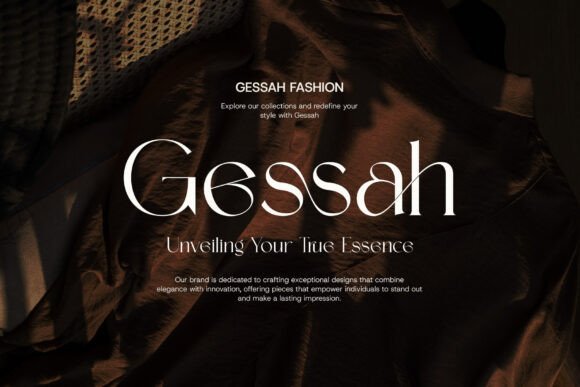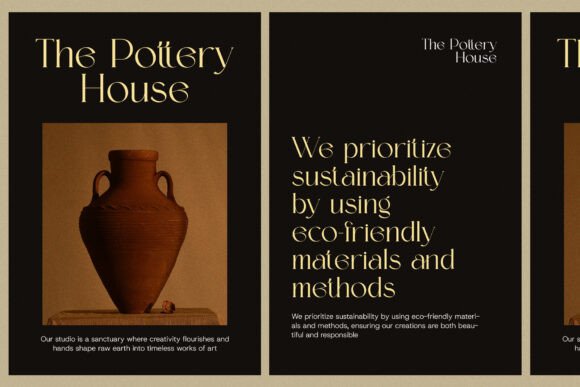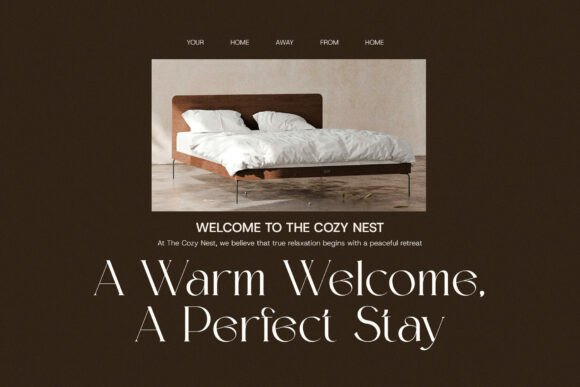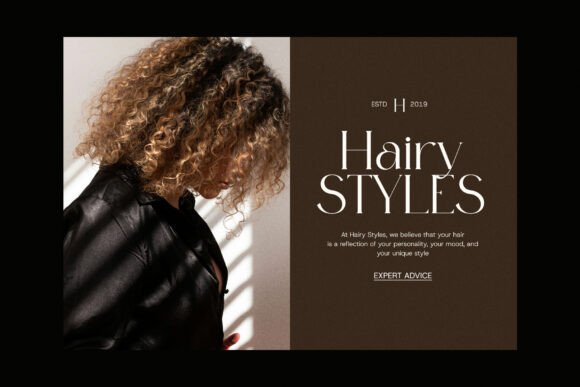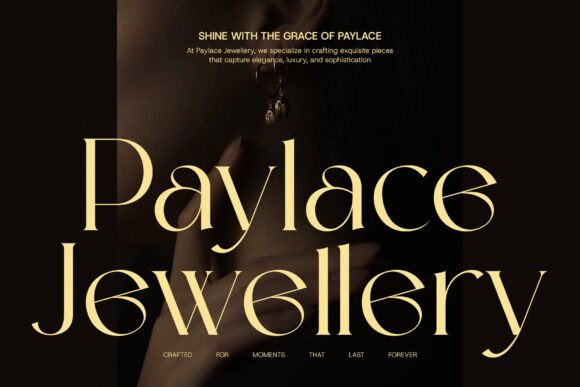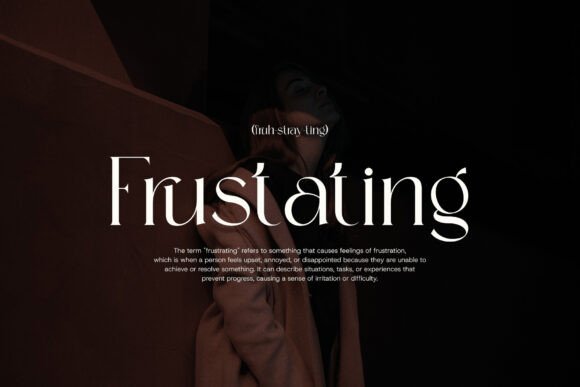
Ganthe Modern Serif Font: Elevate Your Designs with Timeless Elegance
In the world of typography, a well-crafted font can make all the difference in elevating your design to new heights. Introducing Ganthe Modern Serif Font, a bold and sophisticated typeface that seamlessly blends modern design with timeless elegance. With its sleek serifs and clean, sharp lines, Ganthe offers a refined yet contemporary feel that is perfect for high-end projects.
Unparalleled Versatility
Ganthe Modern Serif Font is a versatile choice for a wide range of applications, including logos, branding, and visual identities. Its strong, confident appearance makes it especially effective in premium advertising, luxury product packaging, and editorial layouts. Whether you’re designing for a boutique, a fine dining restaurant, or a lifestyle brand, Ganthe brings a sense of sophistication and distinction to any creative endeavor.
Distinctive Features
What sets Ganthe apart from other modern serif fonts is its beautifully crafted ligatures and alternate characters. These unique features provide an extra layer of character and flair, allowing you to infuse your designs with personality and style. The font’s sleek serifs and clean lines create a sense of balance and harmony, making it perfect for designs that require a touch of elegance.
Perfect for Digital and Print Formats
Ganthe Modern Serif Font shines equally in digital and print formats, making it perfect for a variety of mediums. Use it for websites, magazines, brochures, and advertisements to add a touch of sophistication and refinement. The font’s legibility and clarity ensure that your message is conveyed with precision and style, whether on screen or in print.
Why Choose Ganthe?
So, why choose Ganthe Modern Serif Font for your next design project? Here are just a few reasons:
- Timeless Elegance: Ganthe’s classic design ensures that your project will stand the test of time, remaining stylish and sophisticated for years to come.
- Versatility: With its wide range of applications, Ganthe is the perfect choice for designers who need a font that can adapt to different mediums and projects.
- Unique Features: The font’s ligatures and alternate characters provide an extra layer of uniqueness, allowing you to add personality and flair to your designs.
- Legibility: Ganthe’s clean lines and sleek serifs ensure that your message is conveyed with precision and clarity, whether on screen or in print.
Design Inspiration
Ganthe Modern Serif Font is perfect for designers who appreciate the finer things in life. If you’re looking for inspiration, consider the following design styles:
- Luxury Branding: Use Ganthe to create high-end logos and branding materials that exude sophistication and elegance.
- Editorial Design: Add a touch of refinement to your editorial layouts with Ganthe’s classic design and sleek serifs.
- Packaging Design: Elevate your luxury product packaging with Ganthe’s strong, confident appearance.
In conclusion, Ganthe Modern Serif Font is a bold and sophisticated typeface that is perfect for high-end projects. With its sleek serifs, clean lines, and unique features, Ganthe offers a refined yet contemporary feel that is sure to elevate your designs. Whether you’re a designer, craftsperson, or simply someone who appreciates great typography, Ganthe is an excellent choice for any creative endeavor.